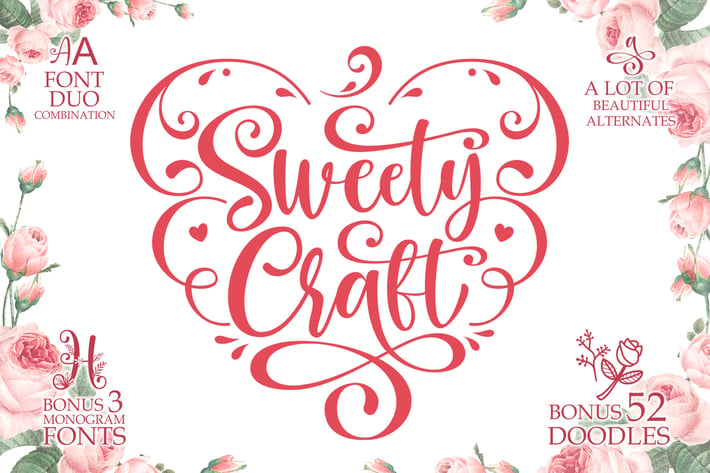
Sweety Craft Business Crafting Font
Sweety Craft is a font that made for designer who love to make beautiful project like craft, svg , clothing, poster, fashion, logo, and many others. Sweety Craft is basically a font duo , but comes with a lot of alternate that let you make a good combination design. You will also get many bonus , there are 3 monogram fonts and 52 doodles.